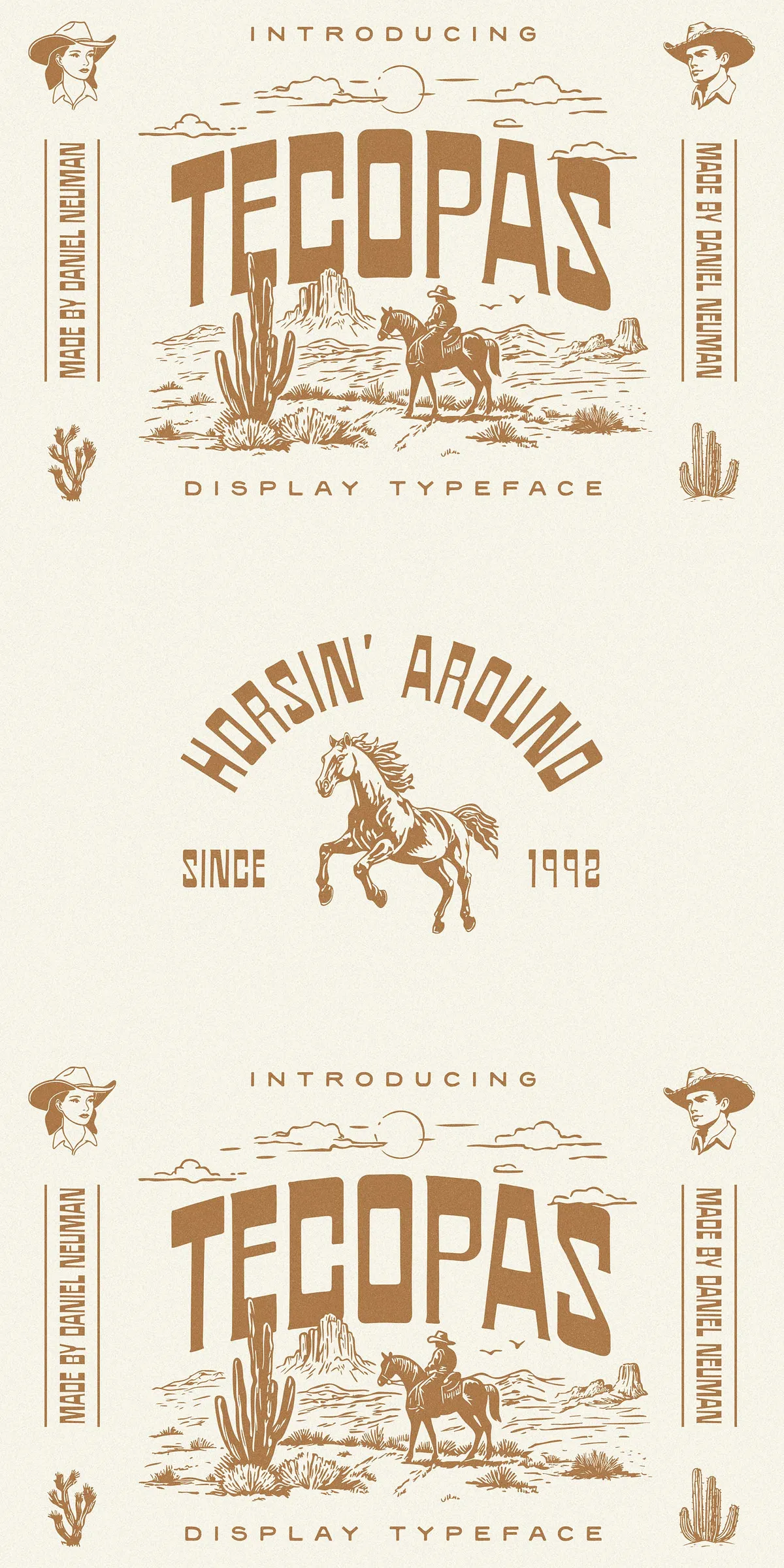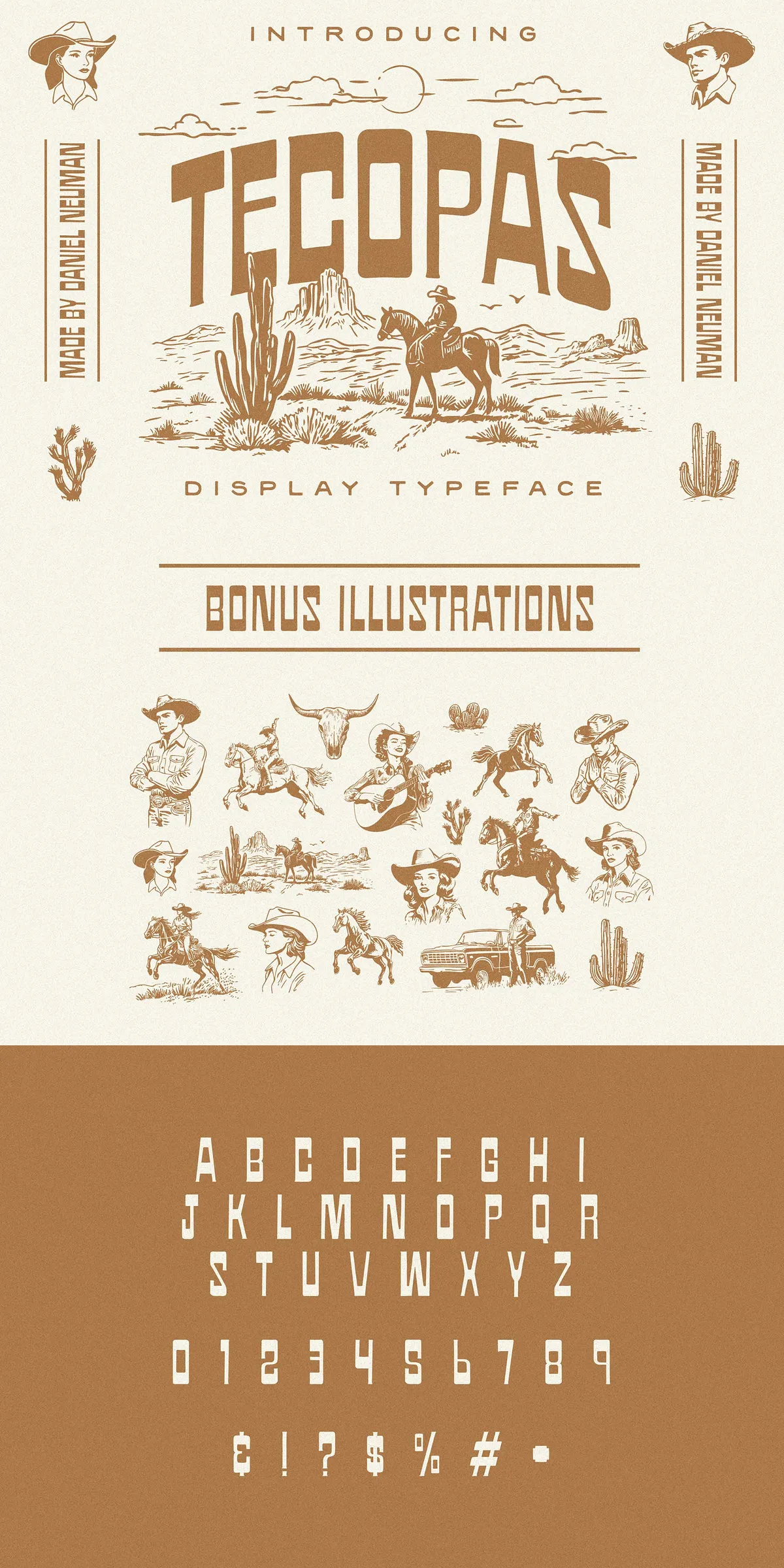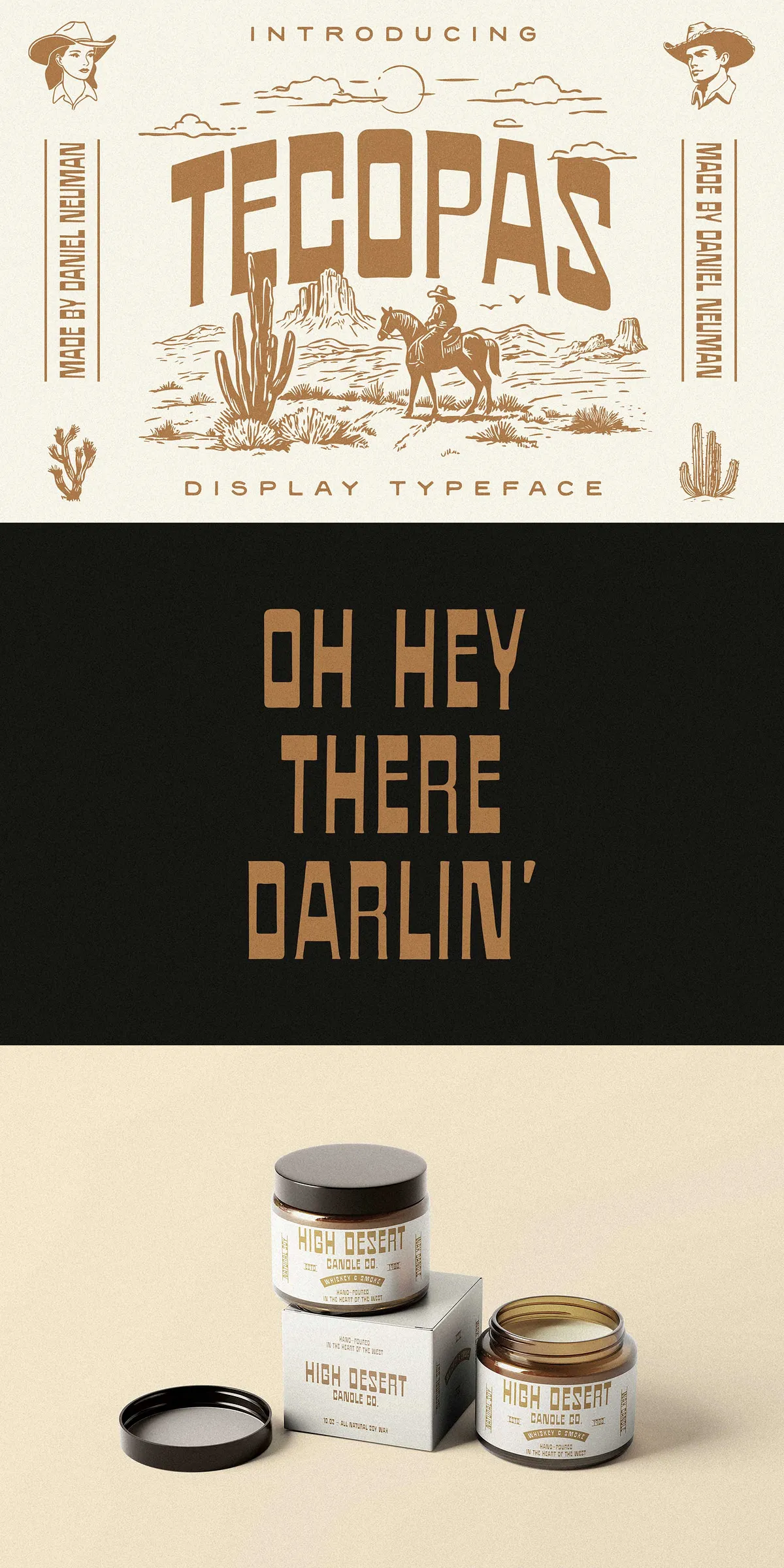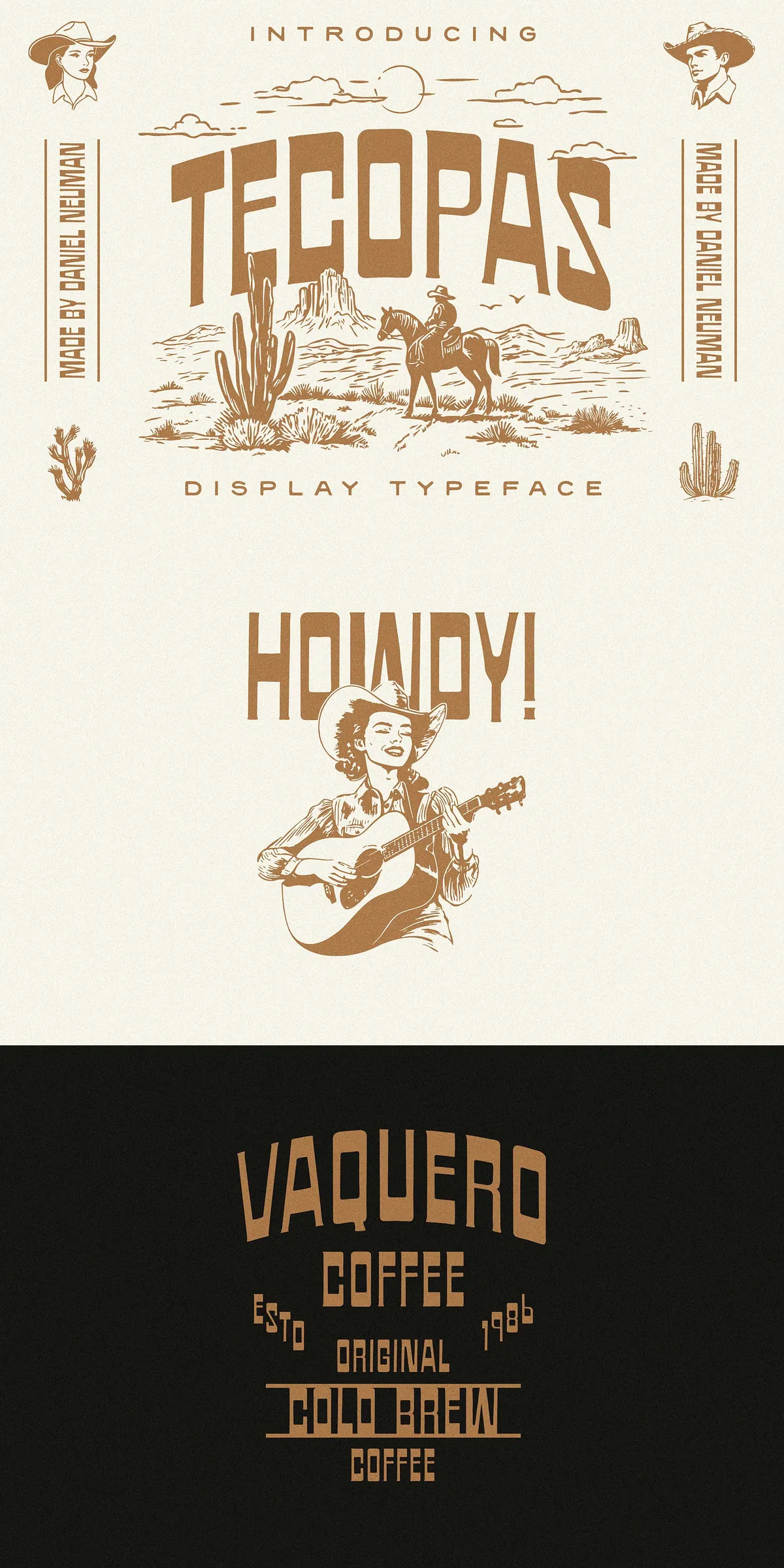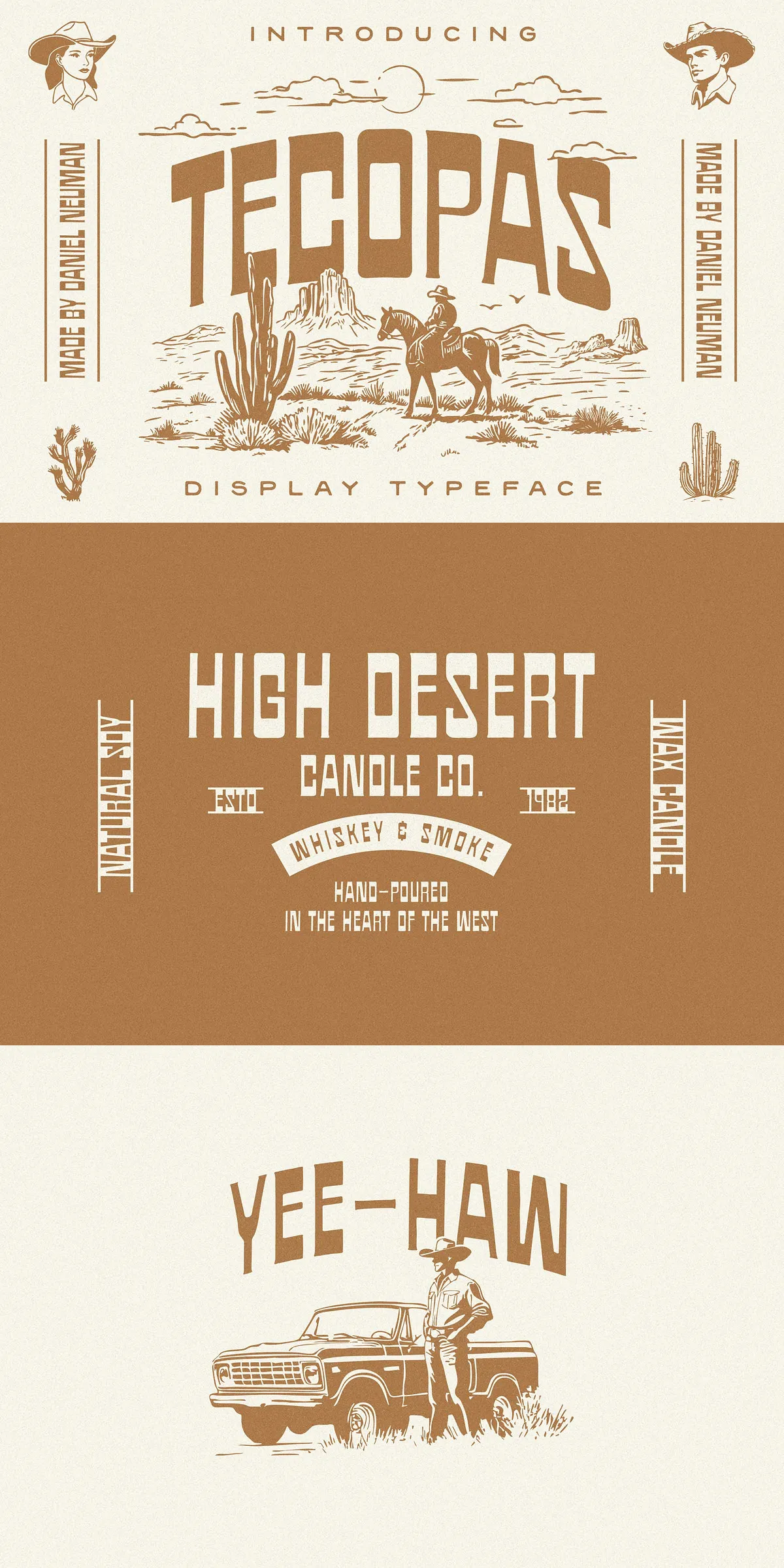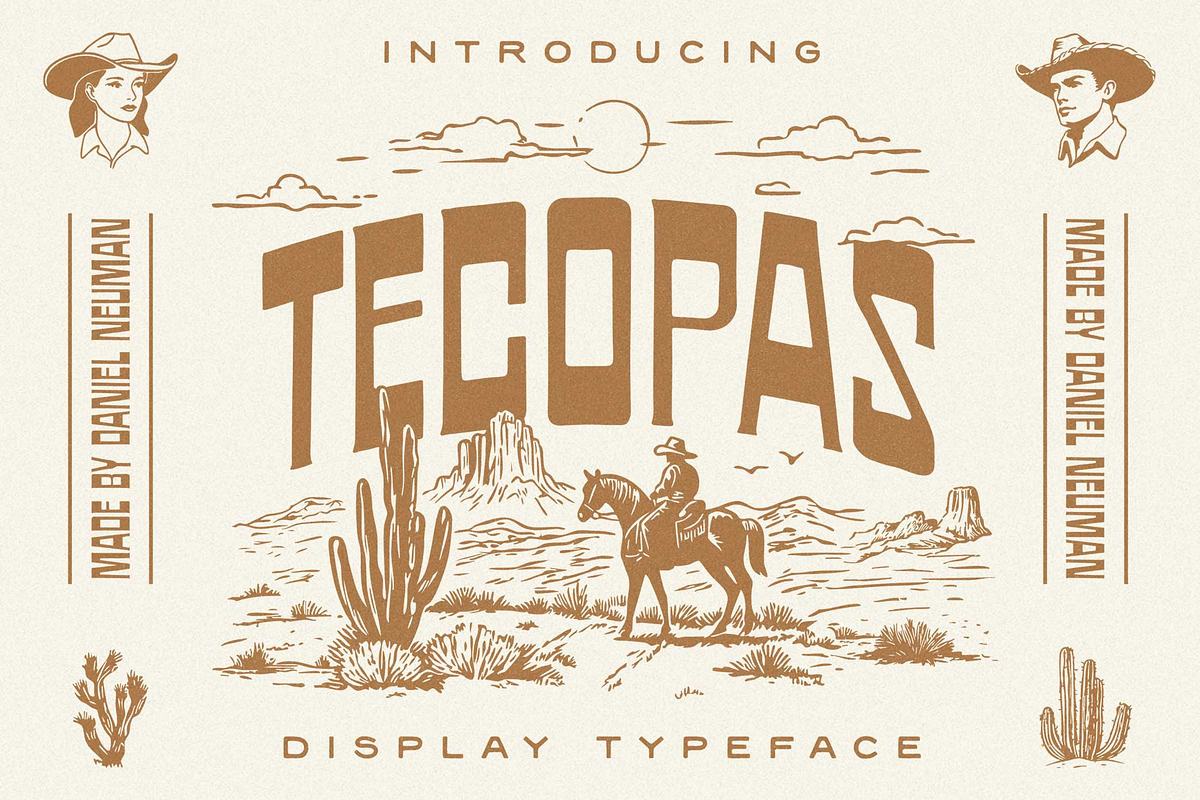
Ready to make your design stand out like it’s riding across a sunbaked desert plain? Tecopas isn’t just a font — it’s a declaration. With its striking Western-inspired aesthetic and deep roots in Mexican cultural heritage, this display typeface brings raw authenticity, bold attitude, and timeless charm to every word you type. Whether you’re designing a label, crafting a festival poster, or building a brand identity with edge, Tecopas ensures your message doesn’t just land — it roars.
Why Tecopas Transforms Every Project into a Visual Story
More than just a letterform, Tecopas delivers narrative power. Designed for creators who value bold expression and cultural authenticity, this font turns text into an experience. With every stroke, you feel the dust of the trail, the heat of the sun, and the rhythm of a tradition long lived. It’s not just typography — it’s storytelling in script and serif.
1. Unmistakable Western & Mexican Heritage Aesthetic
Tecopas draws from the rich visual language of the American Southwest and Mexico’s vibrant artisanal legacy. Its strong, angular lines are inspired by hand-painted signs, old rodeo banners, and traditional Mexican lettering seen on market stalls and adobe walls. The mix of bold weight, tapered serifs, and slightly irregular stroke dynamics gives each character a handmade, authentic feel — like it was carved from wood or painted with a brush dipped in earth and fire.
This isn’t mass-produced design. Tecopas was built for those who value depth, soul, and a little bit of rebellion in their fonts.
2. Rich OpenType Features — Customize Like a Pro
Take control of your design with powerful OpenType features. Tecopas includes over 140 stylistic alternates for uppercase and lowercase letters, allowing you to switch between classic, rustic, and highly stylized versions with a single keystroke.
- ✨ Alternate Characters: Type
+altafter a letter (e.g.,L+alt) to access bold, decorative, or hand-crafted alternatives. - ✨ Special Ligatures: Use built-in ligatures like
TT,FF, andCLfor seamless, professional-looking text with natural flow. - ✨ PUA Encoded Glyphs: Full access to all alternates and symbols without relying on standard encoding — guaranteed compatibility across Adobe, Canva, Affinity, and other platforms.
Built for Real-World Creative Projects
Tecopas isn’t designed for the sidelines. It’s built for projects that demand attention, energy, and character. Here’s where it shines:
Brand Identity with Personality
Create a brand that feels bold and authentic — not generic. Use Tecopas for your company name, taglines, or promotional materials, especially if your brand leans into outdoor, lifestyle, artisanal, or culturally rooted themes. Think craft breweries, sustainable fashion lines, music festivals, or adventure travel brands.
Label & Packaging Design That Speaks Volumes
Make your products stand out on crowded shelves. Tecopas adds instant credibility and visual intrigue to wine bottles, spice jars, limited-edition merchandise, and product boxes. Its natural imperfections give it a handcrafted feel — the perfect match for brands that want to feel real, not perfect.
Headlines & Event Promotions That Demand a Second Look
Whether it’s a concert poster, festival lineup, or social media campaign, Tecopas grabs attention the moment it’s seen. Its strong presence makes it ideal for bold headlines, event titles, and digital banners. Your audience will stop scrolling — because Tecopas isn’t in the background. It’s leading the story.
Illustrated Design with Bonus Assets
Don’t go it alone. Tecopas comes with a set of exclusive bonus illustrations — ranging from vintage-style horses and cacti to desert landscapes and border motifs. These assets let you build full visual scenes, enhancing your text with context, mood, and cultural depth. Use them to create cohesive, immersive designs that tell a story beyond the words.
Embrace the Trail. Own the Message.
Tecopas isn’t for the faint of heart. It’s for the creators who want to say something — and mean it. With its bold Western edge, cultural authenticity, and powerful design tools, this font isn’t just a tool. It’s your voice on the page.